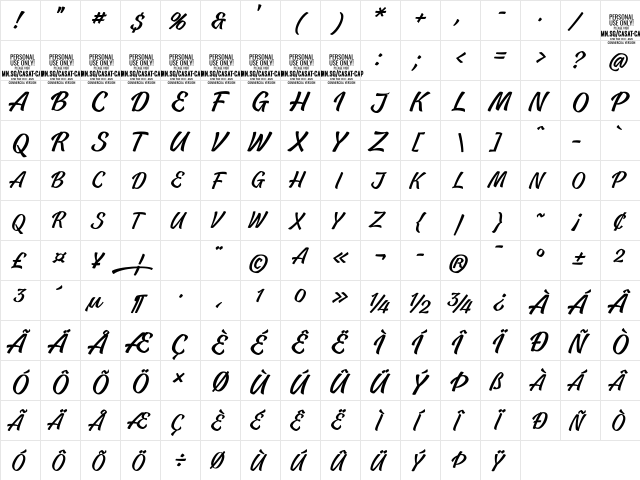
Casat Cap Light PERSONAL USE Regular
| Foundry | Mans Greback |
| Designer | Mans Greback |
Design Context for Casat Cap Light PERSONAL USE Typeface
Casat Cap Light PERSONAL USE is a composed and adaptable typeface that performs quietly and consistently across a wide range of design contexts. Its slender proportions lend an understated elegance to any composition.